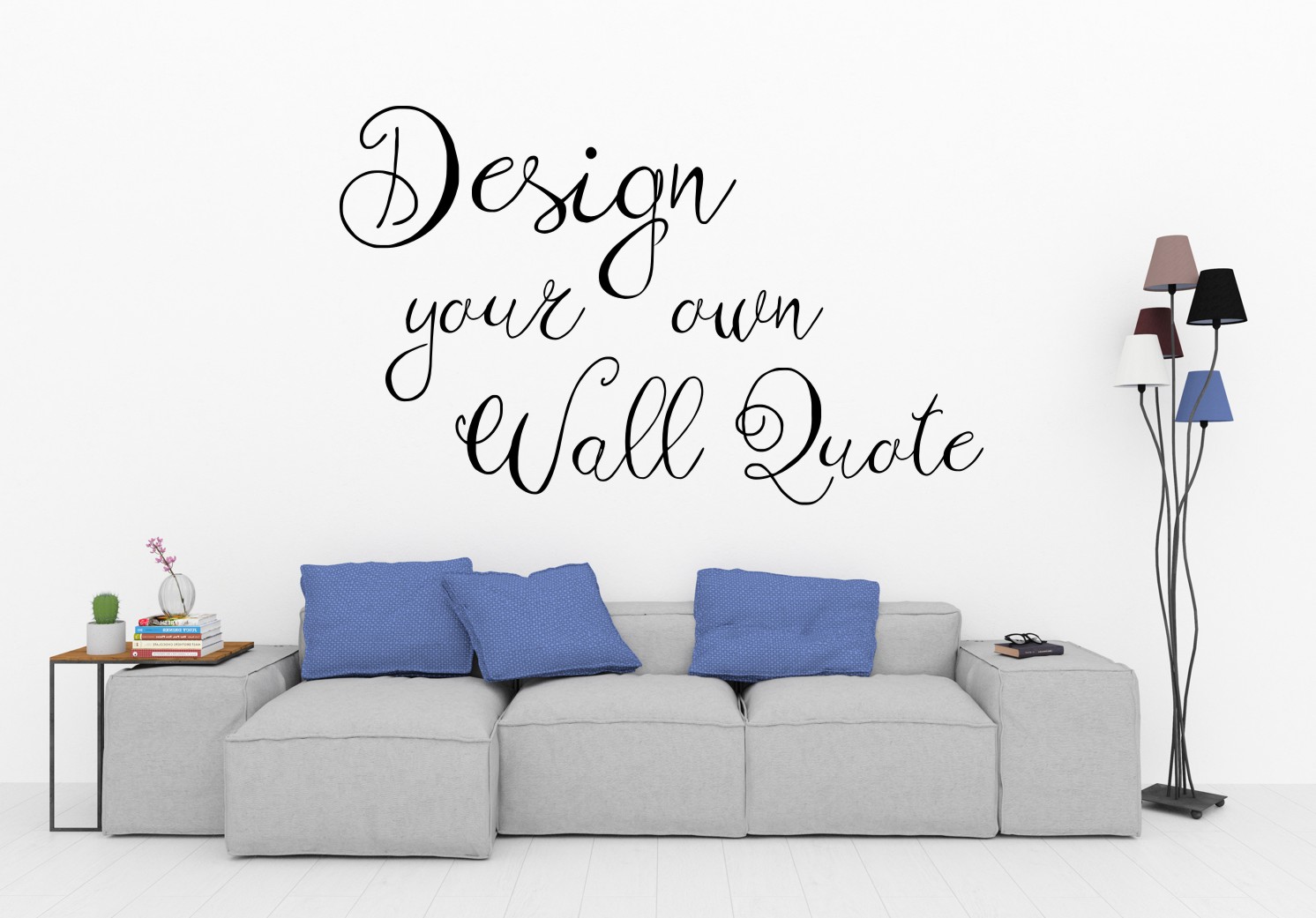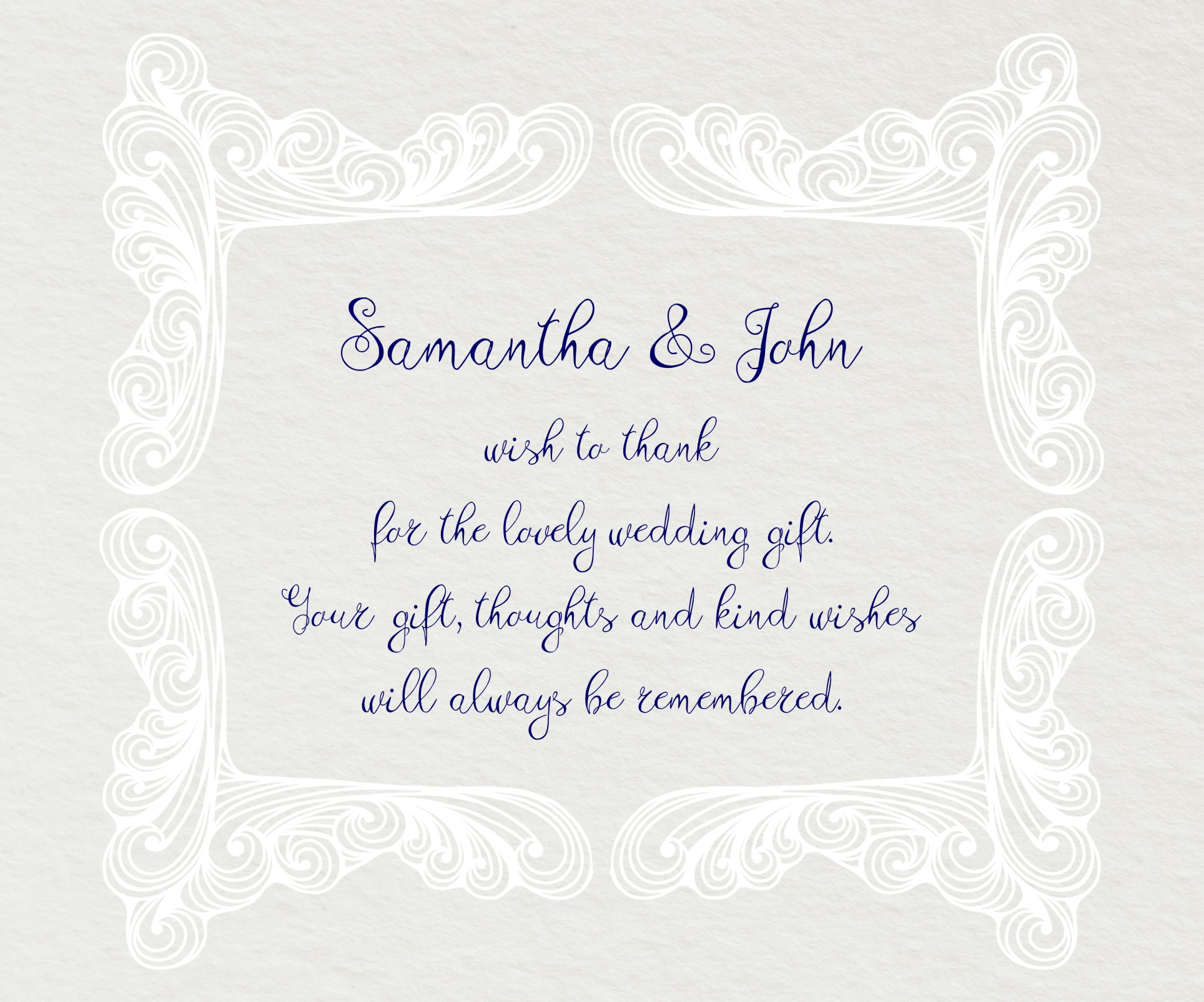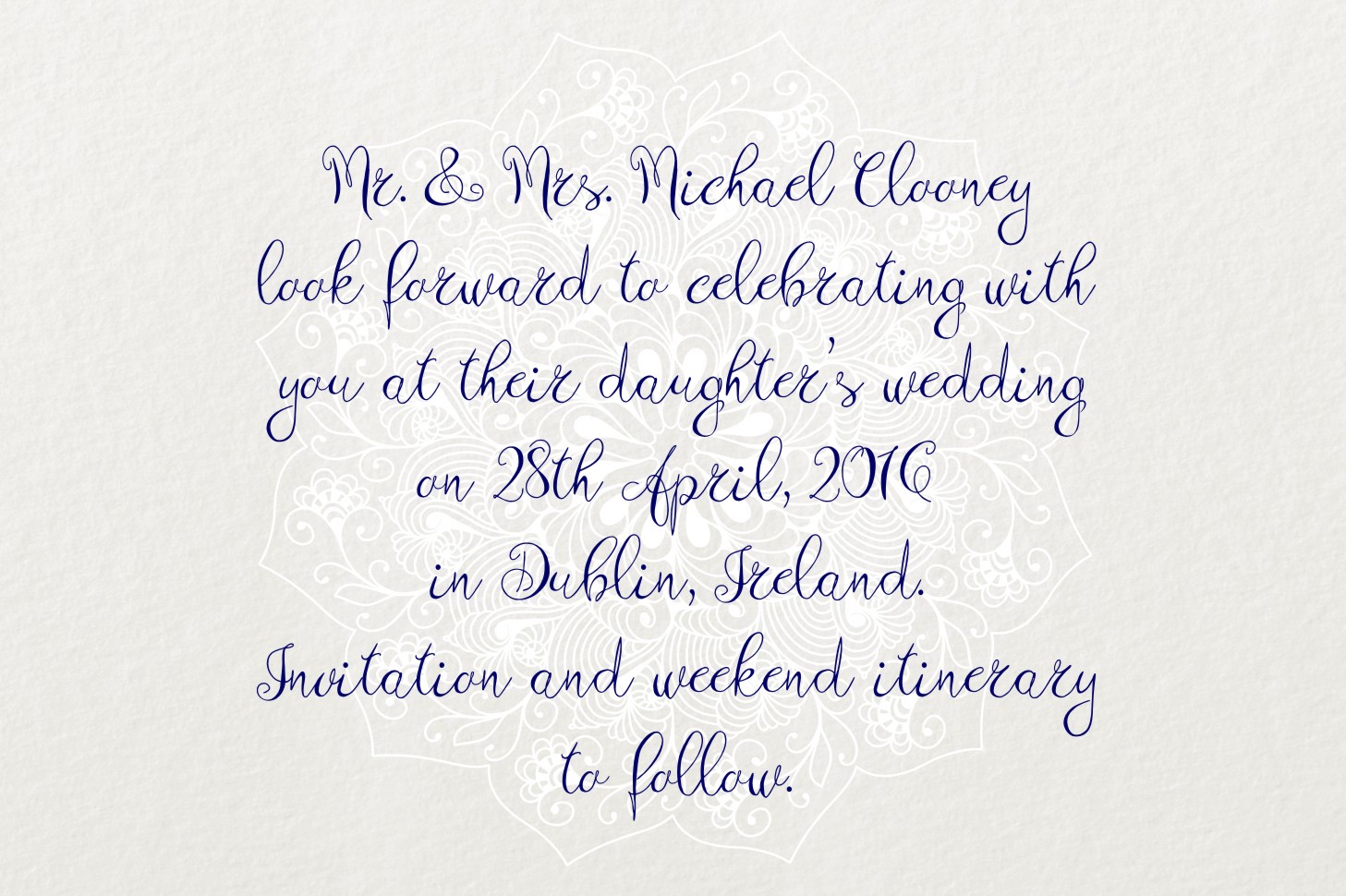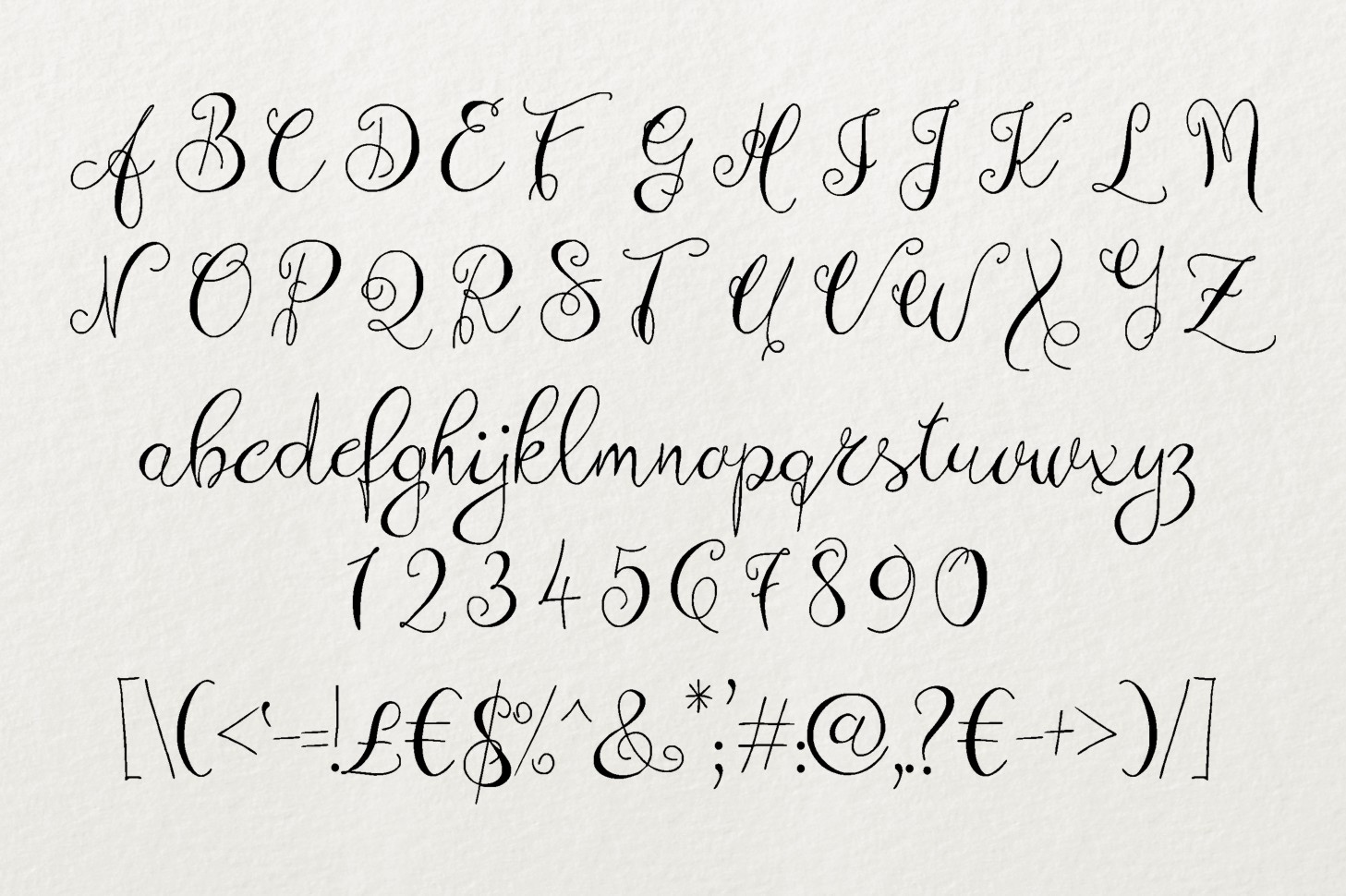
Zenyth Font
About Zenyth Font
Zenyth is a hand crafted font that is perfect for wedding stationary, product packaging, apparel, wall decals and much more.